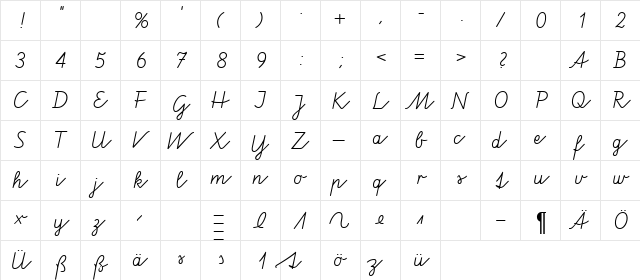
VA Pe Normal
Design Context for VA Pe Typeface
VA Pe offers clean, dependable letterforms without strong stylistic allegiance, making it a practical choice for designers who need flexibility.